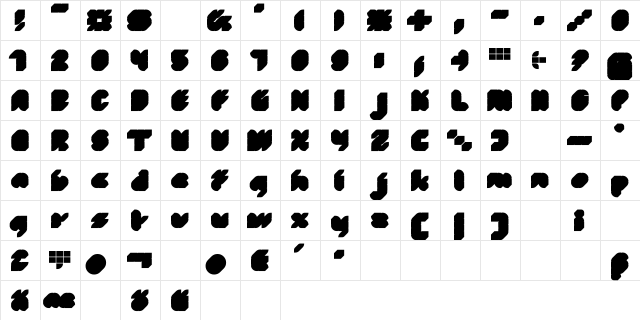
DS MrGreen Shadow Regular
Design Context for DS MrGreen Shadow Typeface
DS MrGreen Shadow is built around its visual character rather than neutral utility — its distinctive forms are designed to make an impression at display sizes.
Font Pairing: Pair with a clean neutral sans-serif for body copy to let DS MrGreen Shadow's character lead without overwhelming the composition.
Pro Tip: Use DS MrGreen Shadow exclusively at display sizes — it was designed to be seen, not read at length. Let a neutral companion handle body copy.